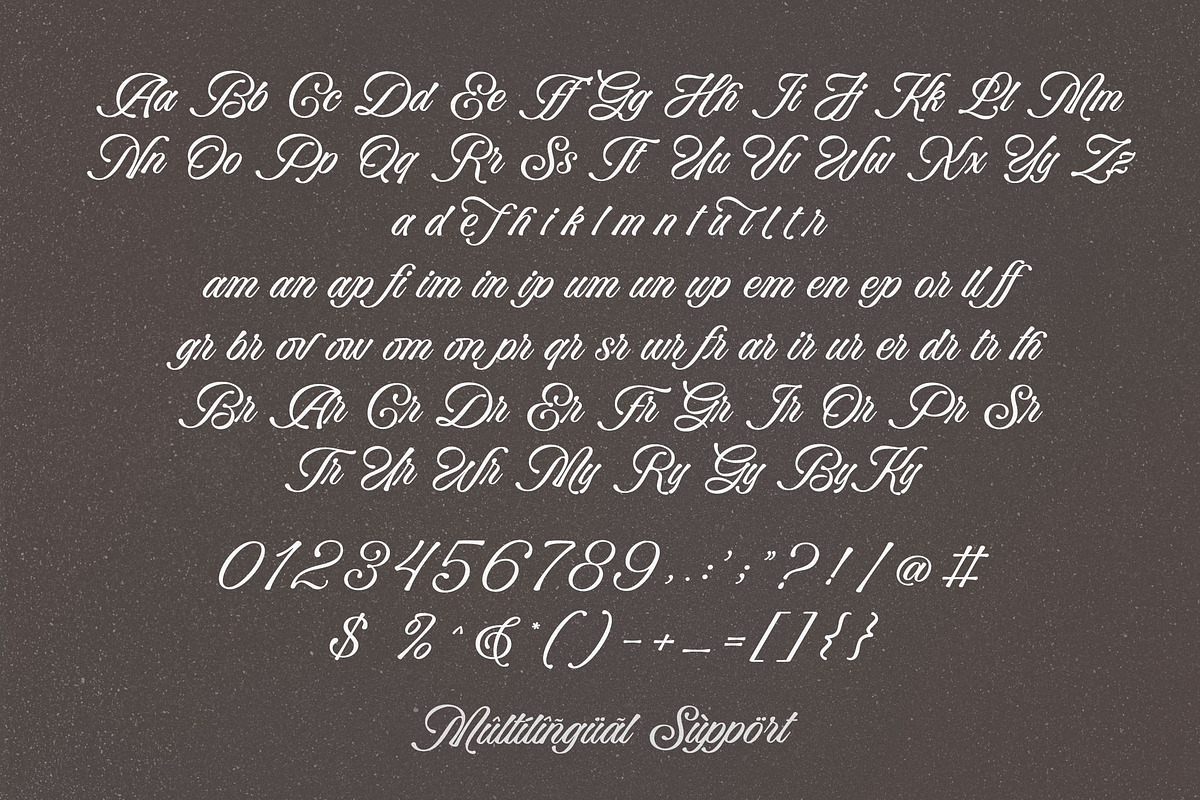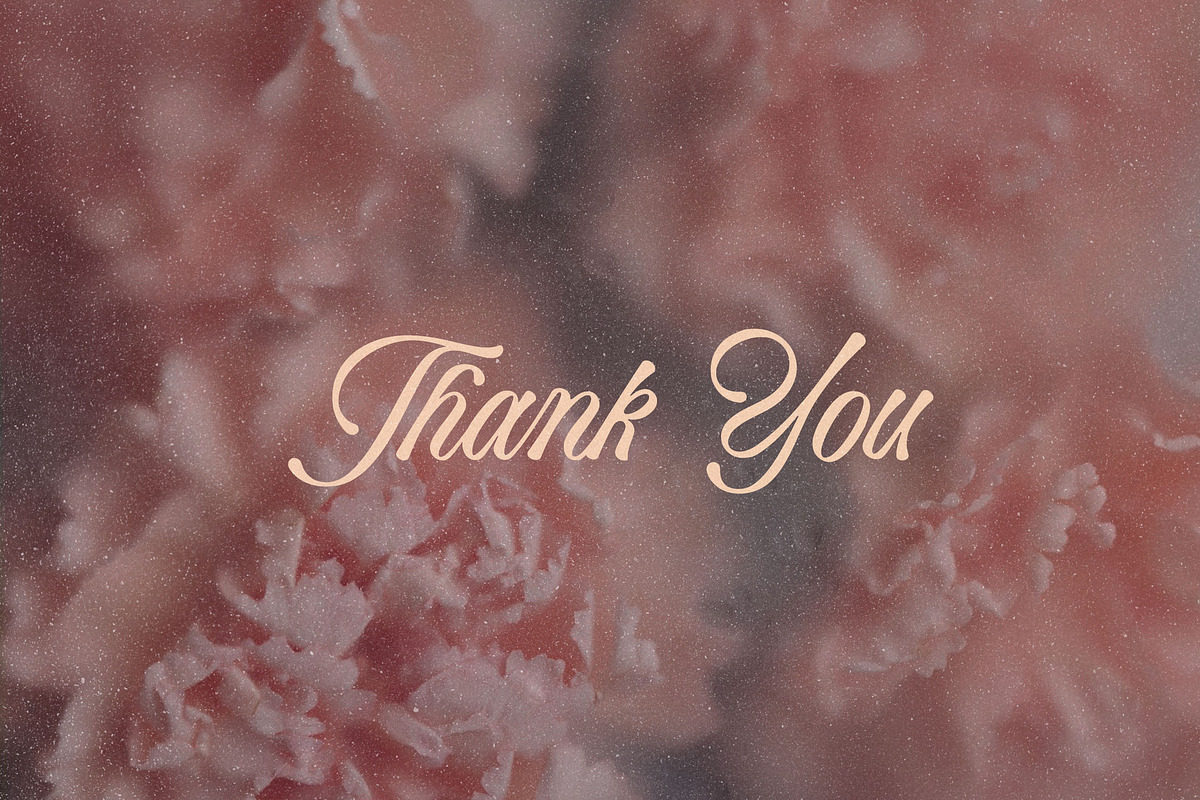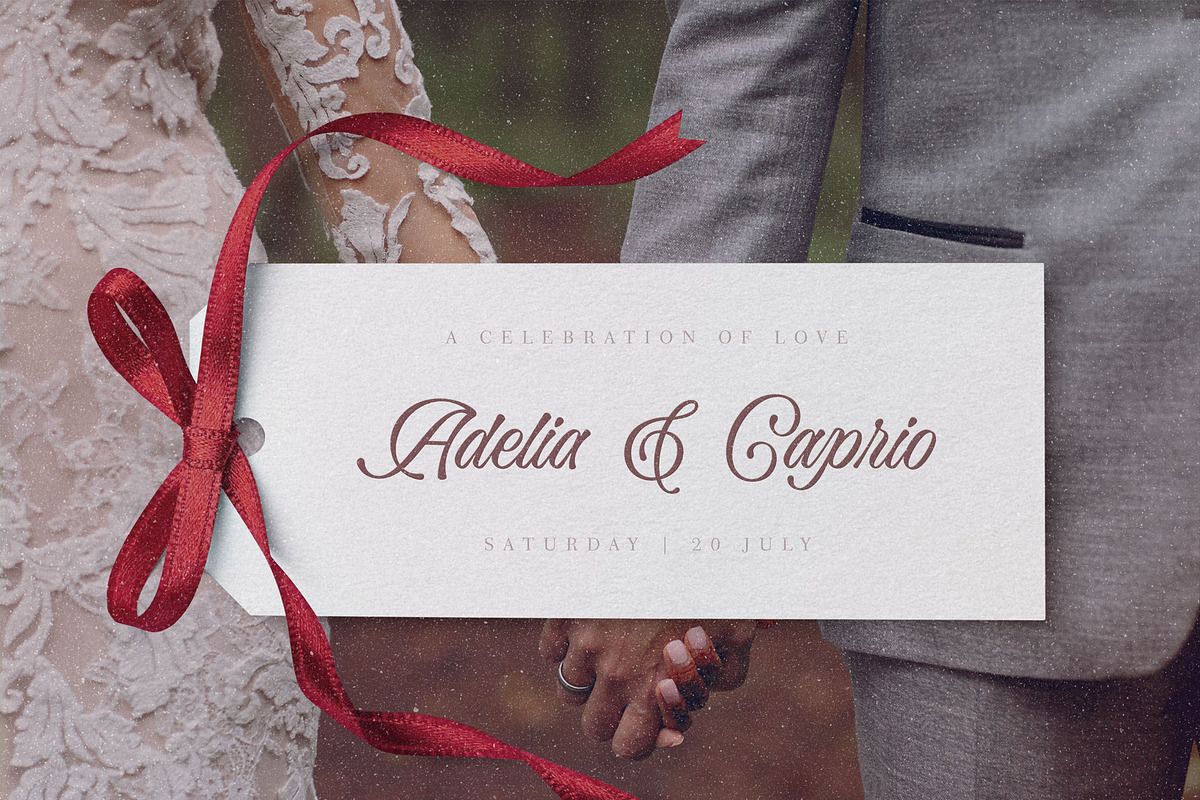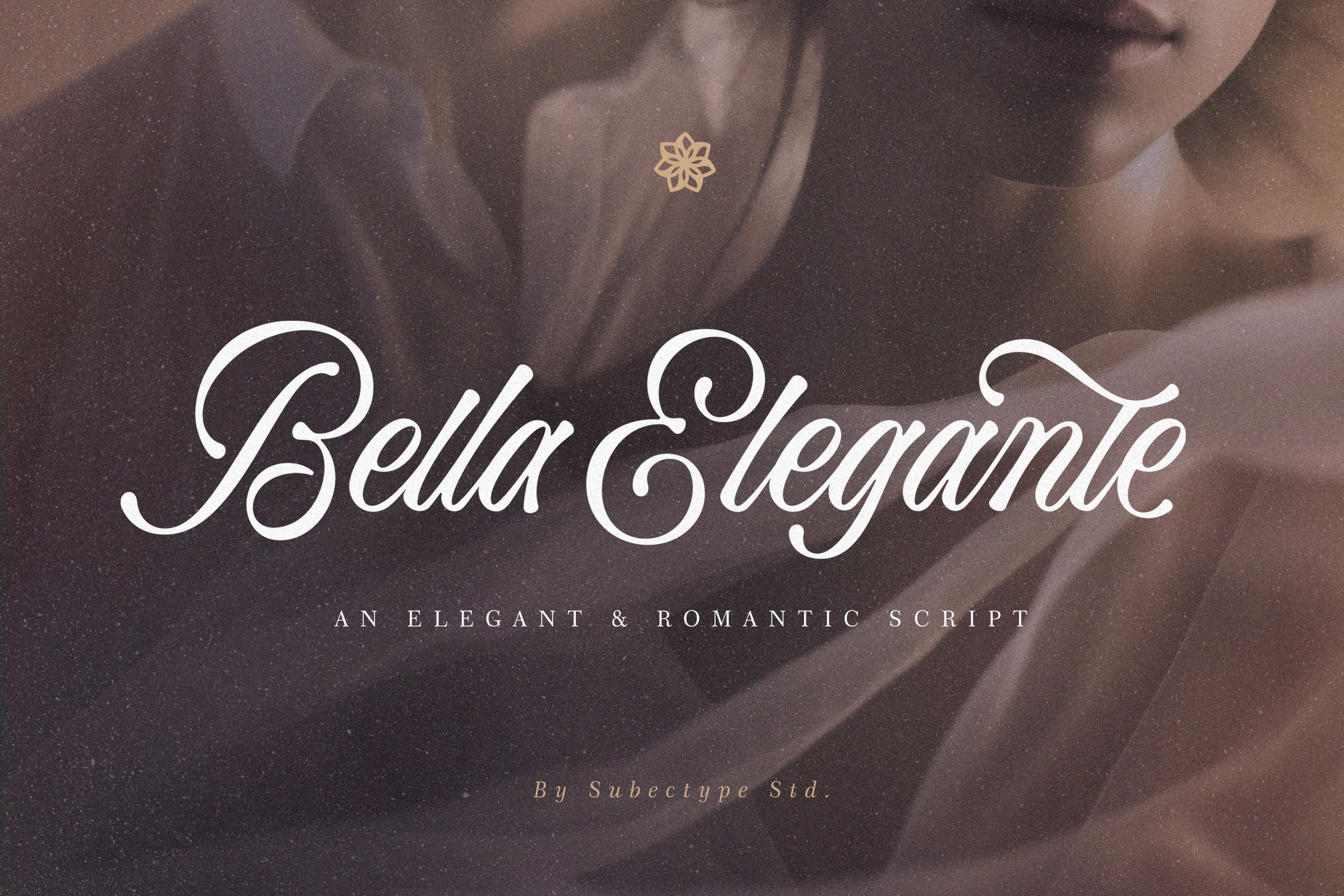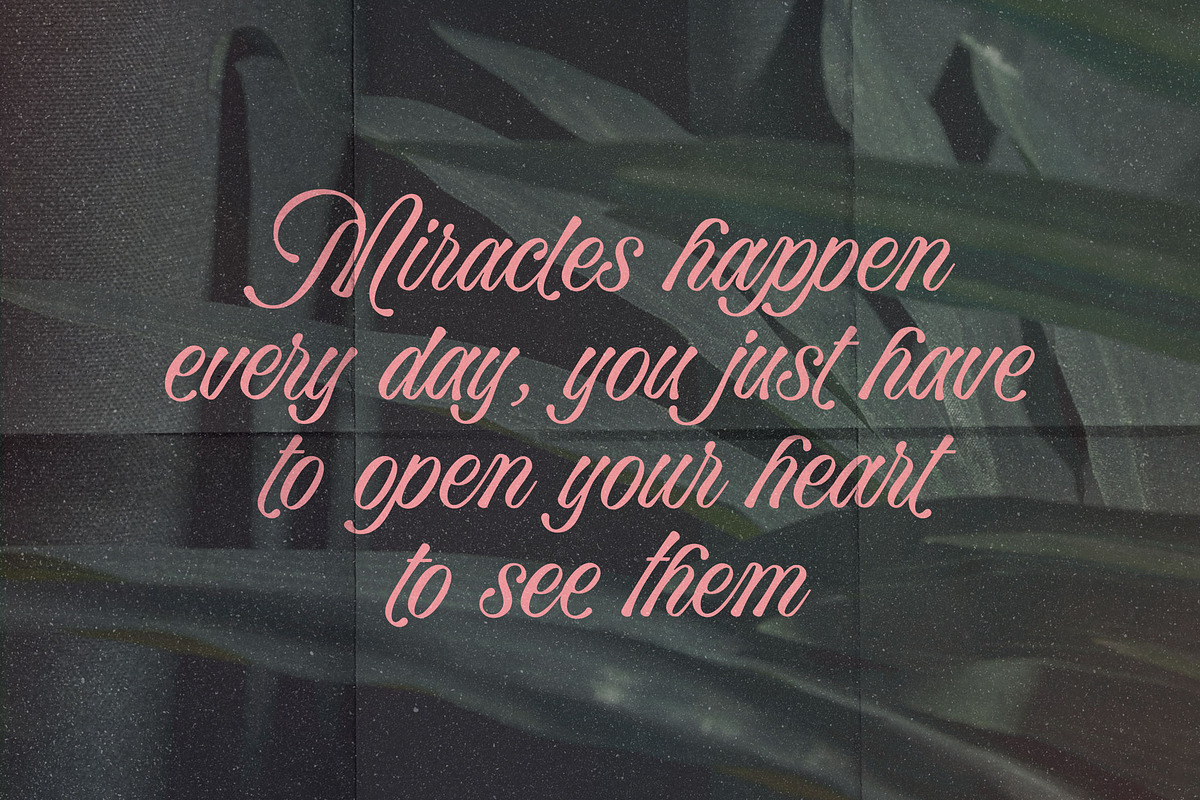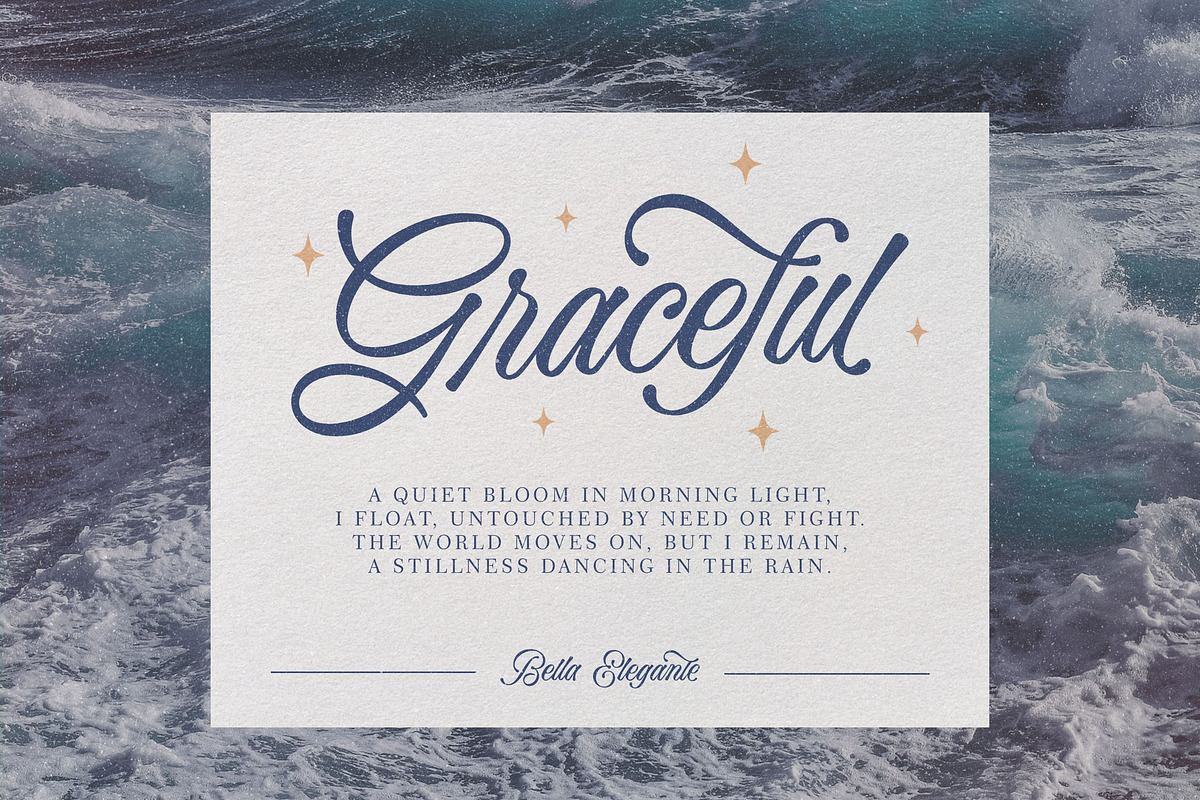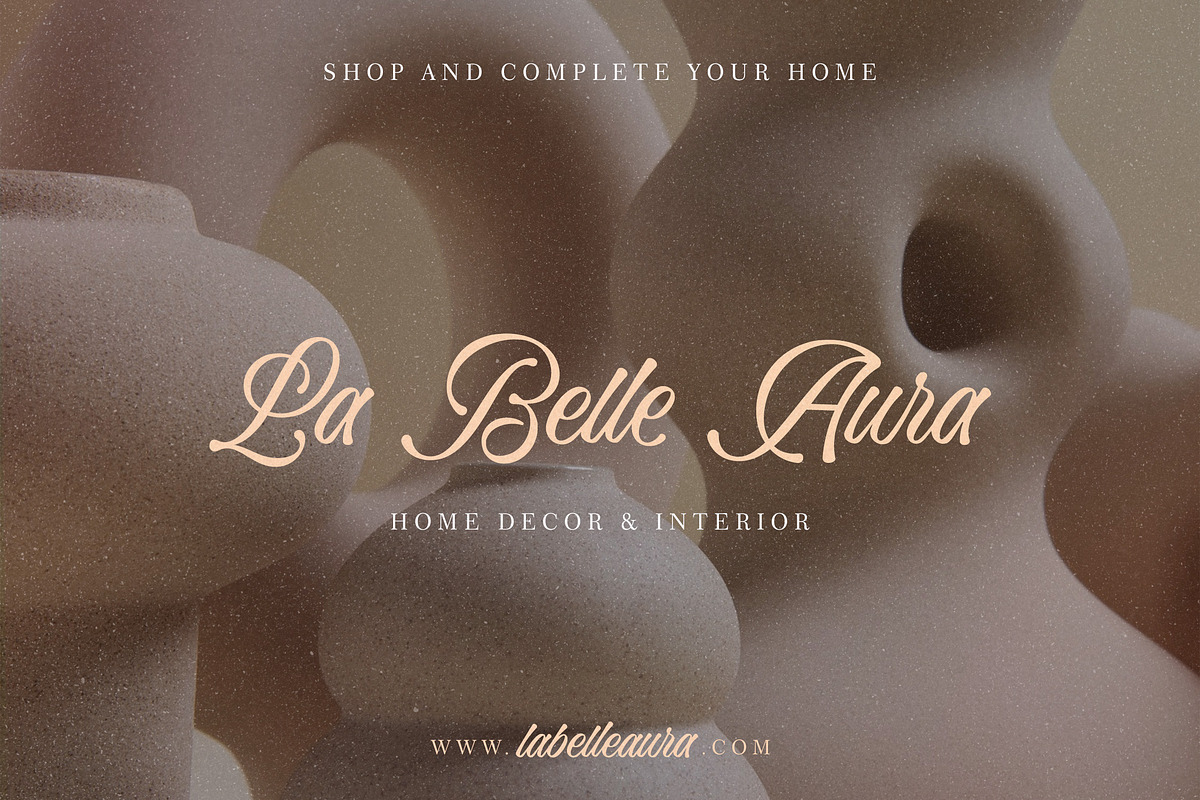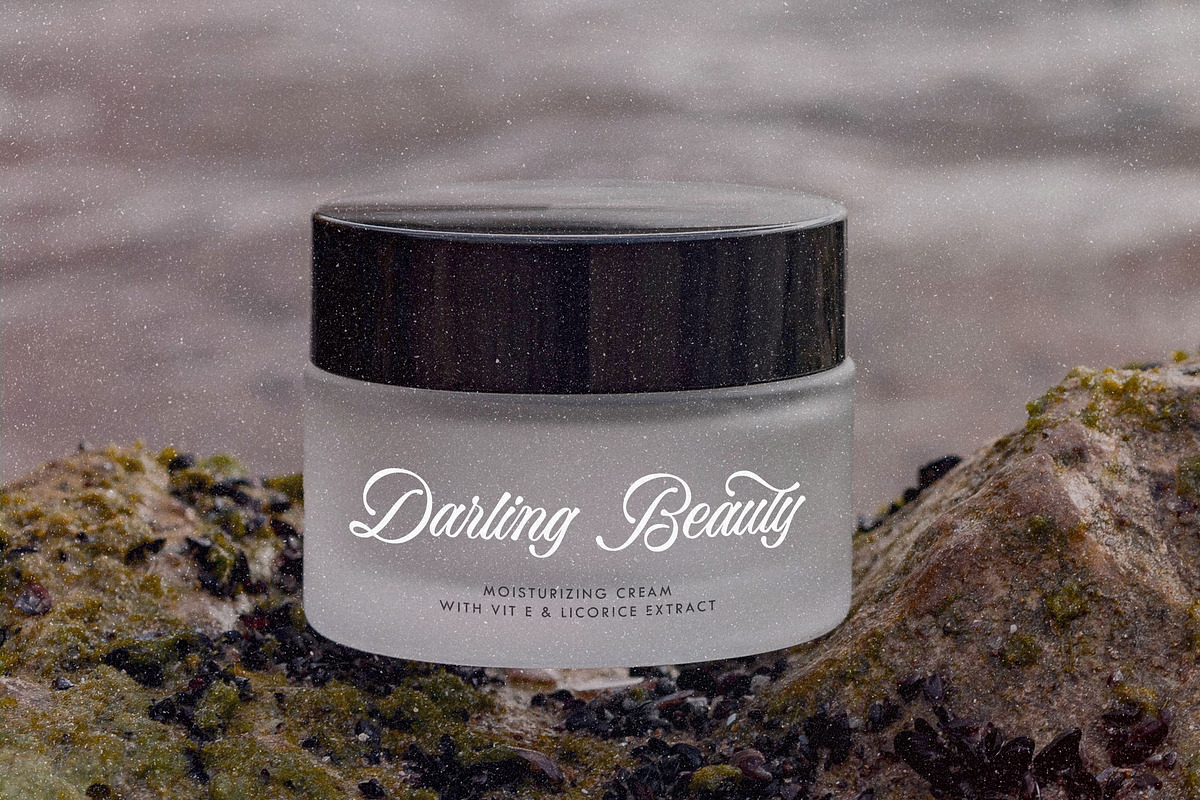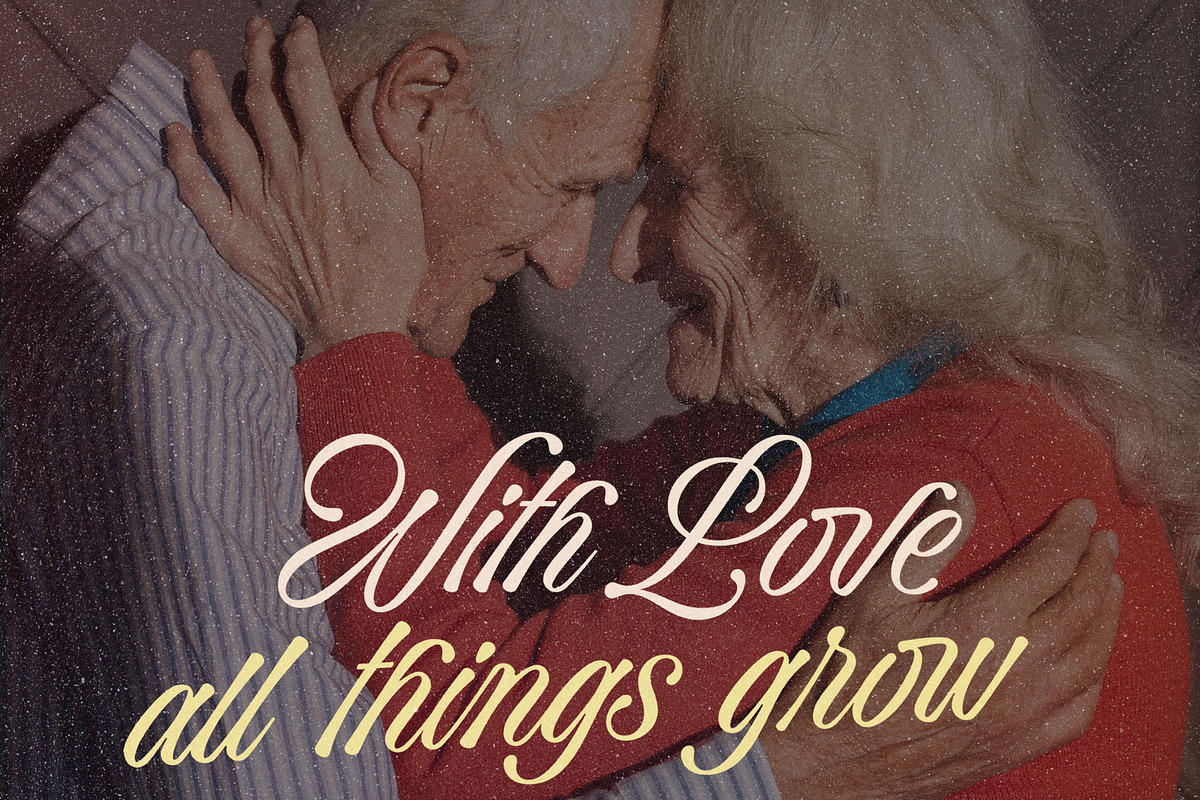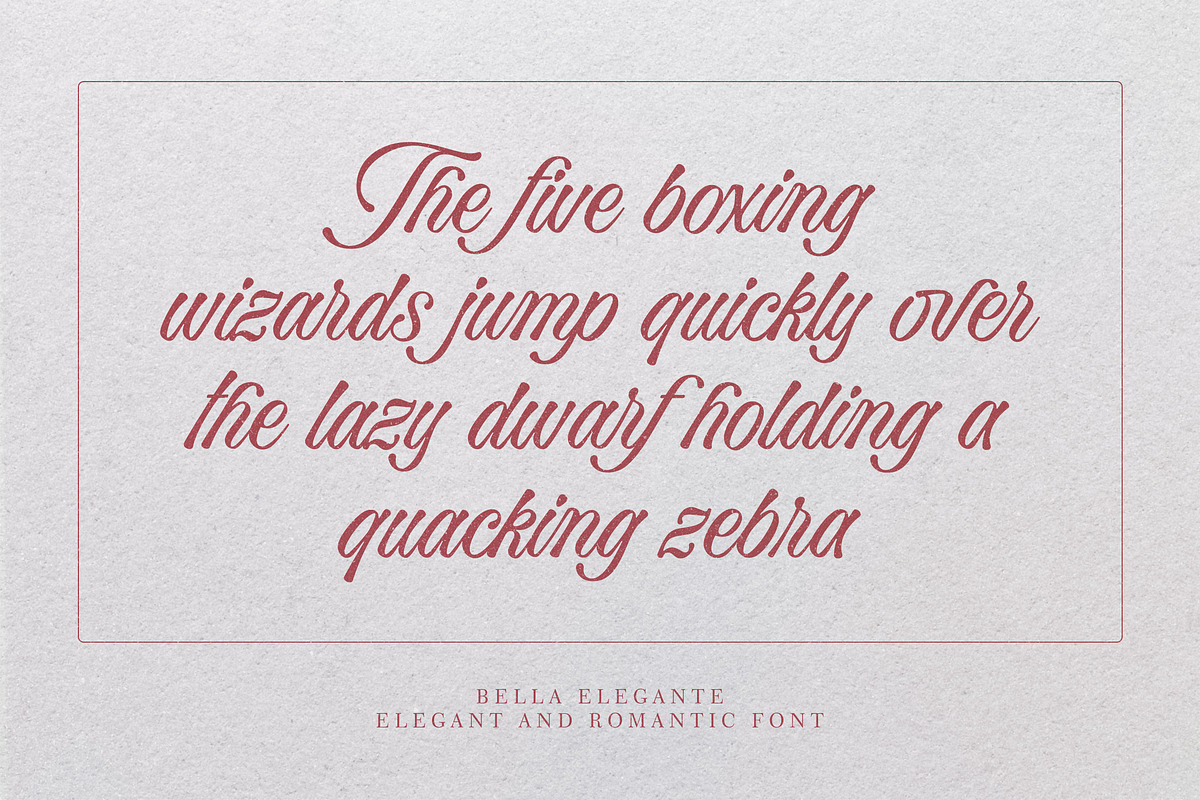
Bella Elegante - Calligraphy Font
Bella Elegante is a Chic calligraphy font, described by an Love touch, perfect for Wedding party, invitation, Signature brand, and all of project with beautiful calligraphy font. Fall in love with its incredibly distinct and timeless style and use it to create spectacular designs!